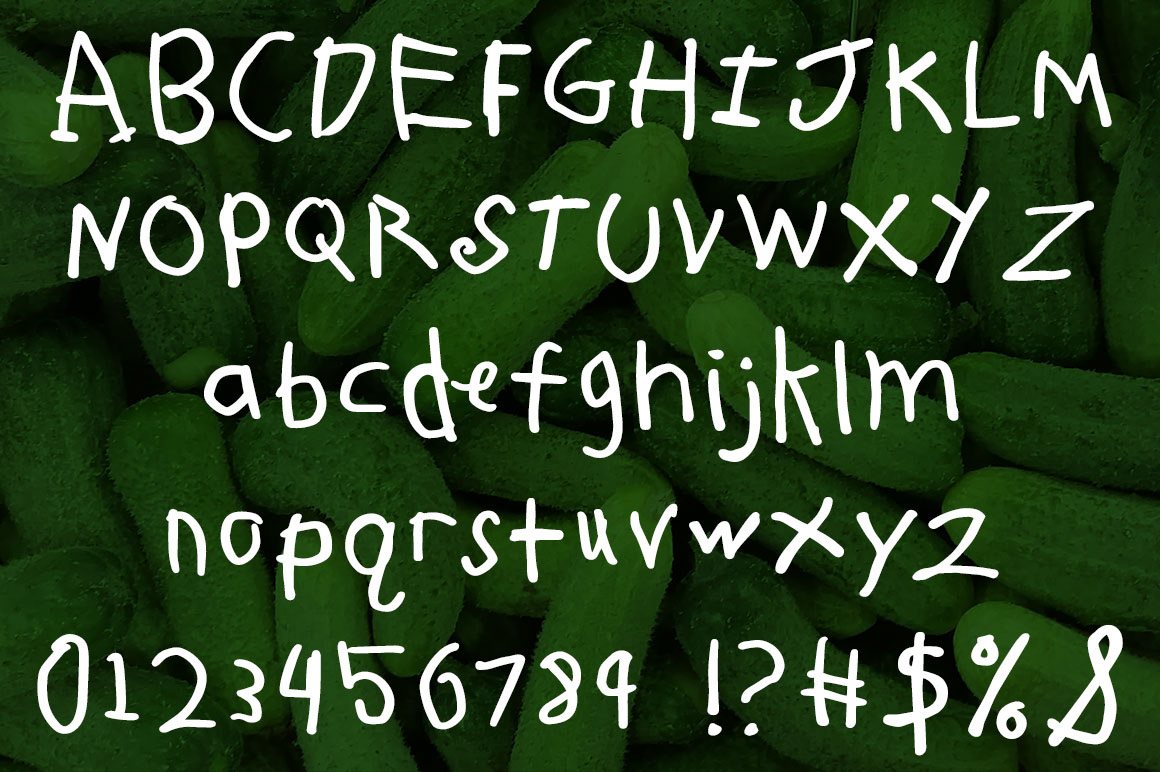
What happens when a class full of kindergarten students write out the alphabet? All of their letters get jumbled up and turned into Pickle Biscuit!
I have a dear friend who is a kindergarten teacher. In order to support her class and her school, I’ve created this font from the fabulous letters of her students. Every letter in this font is modeled on the writing of actual 5- and 6-year-olds. (Though they’ve been adjusted to match in size and weight, and smoothed to make them easy to use.)
The Pickle Biscuit details:
– Includes A-Z, a-z, 0-9, and plenty of punctuation
– Almost 200 extended Latin / accented characters